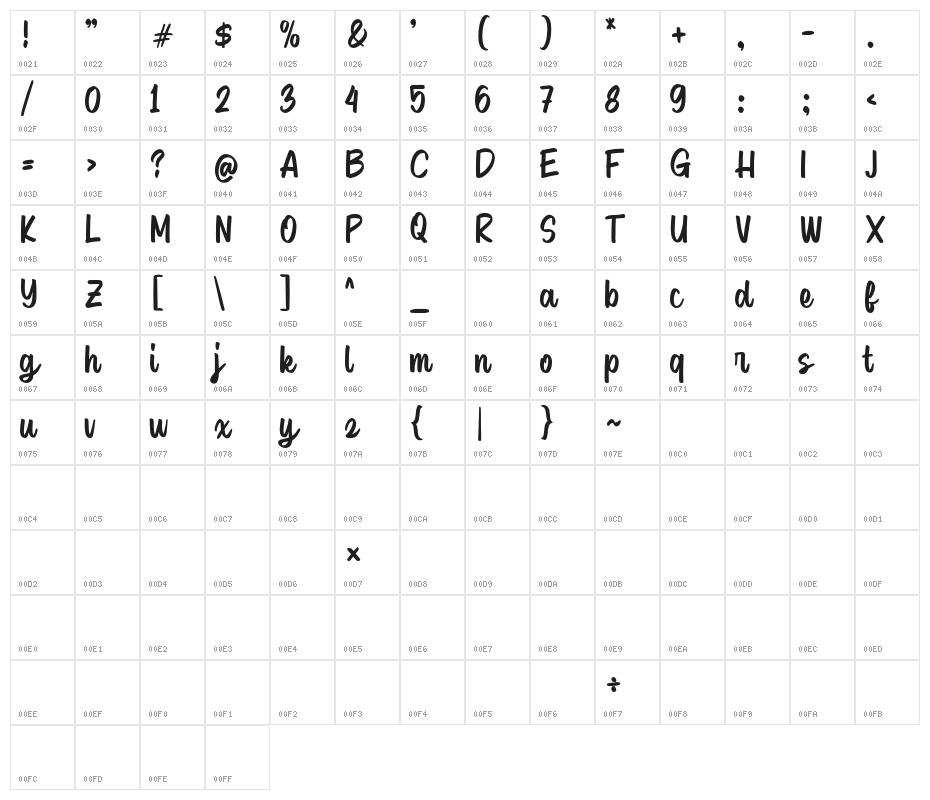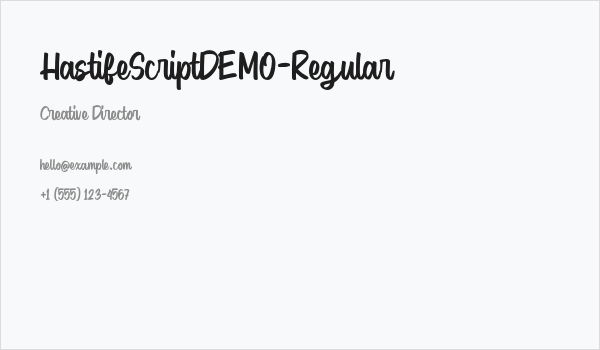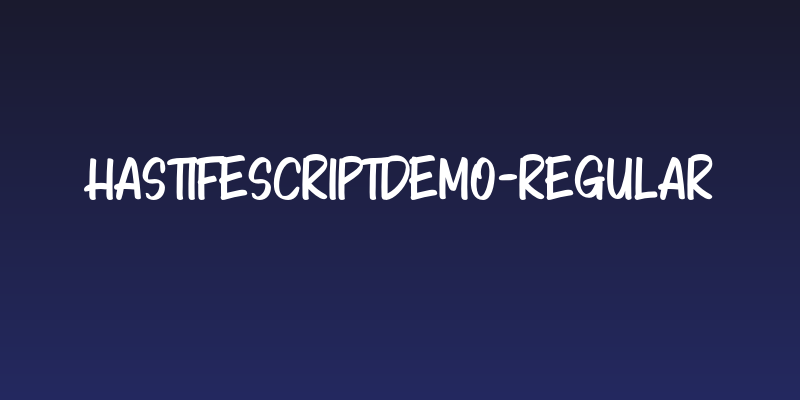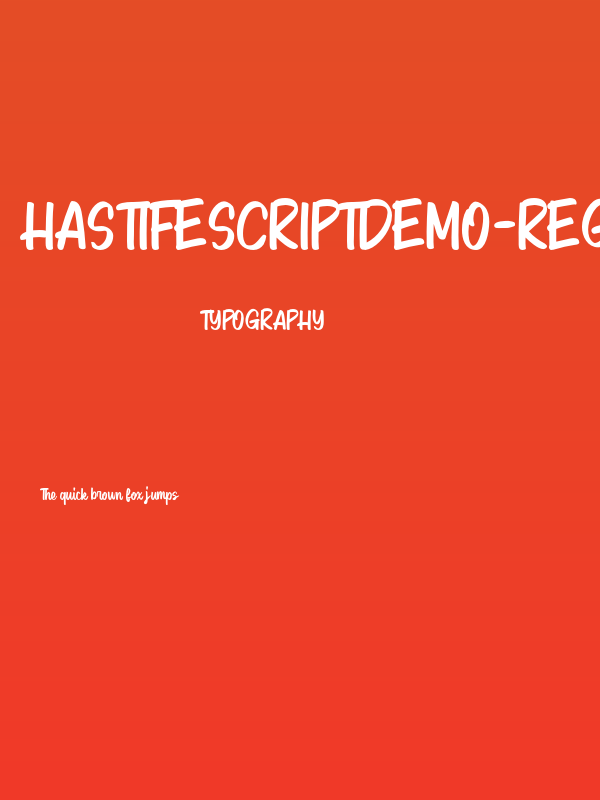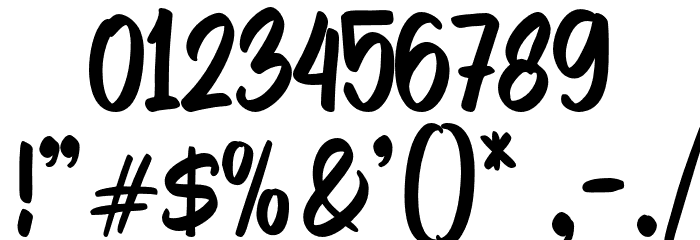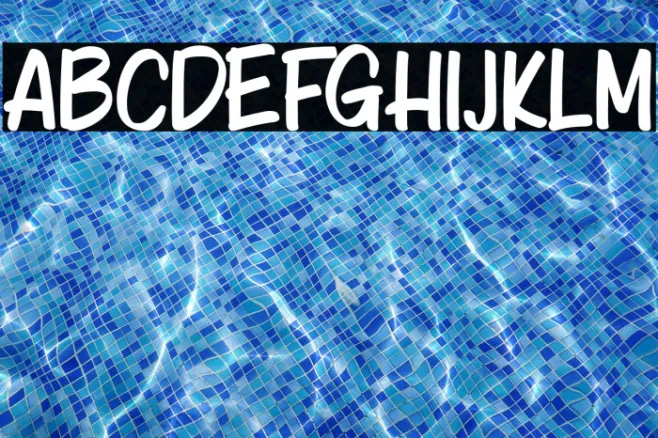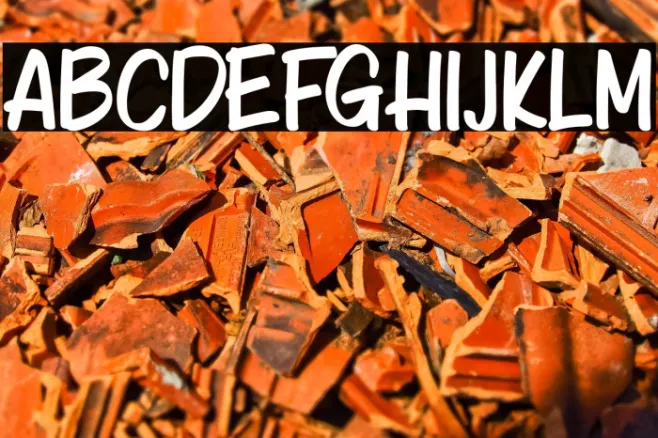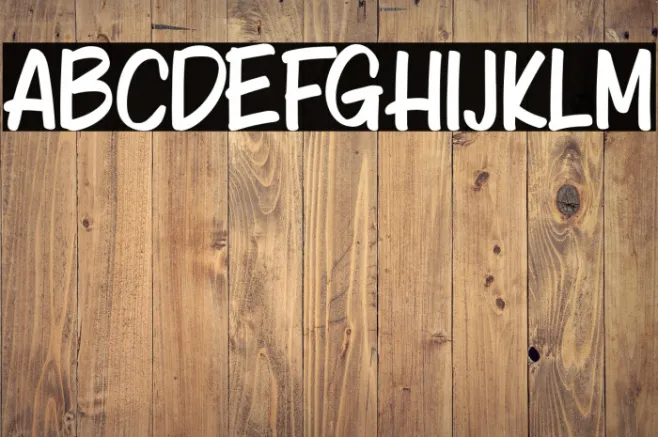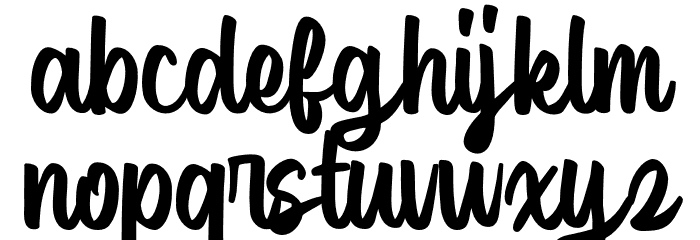
HastifeScriptDEMO-Regular Font
HastifeScriptDEMO-Regular Description
This font features a playful and energetic script style with a handwritten appearance. The uppercase letters are bold and slightly condensed, giving a strong presence, while the lowercase letters exhibit a more fluid and connected form, enhancing its casual and friendly look. The numerals are consistent with the overall style, maintaining the same boldness and playful curves. Special characters are well-integrated, matching the lively and informal aesthetic. This font is ideal for projects that require a personal touch or a sense of fun and creativity.
| Proposed Projects | Great for greeting cards, invitations, playful branding, and social media graphics. |